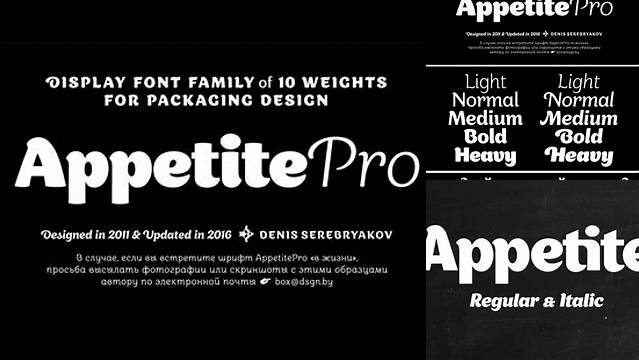
Introduction to Appetite Pro
Appetite Pro, guys, is not just another font; it's a typographic masterpiece designed to add a touch of elegance and sophistication to your projects. Whether you're working on branding, editorial design, or web layouts, this font can significantly elevate your visual communication. In this comprehensive guide, we’ll dive deep into what makes Appetite Pro so special, where you can find it for free, and how to use it effectively in your designs. So, buckle up and let's explore the world of Appetite Pro!
The first thing you'll notice about Appetite Pro is its versatility. It’s designed with a keen eye for detail, making it suitable for a wide range of applications. From sleek and modern logos to engaging website headers, Appetite Pro offers a unique blend of readability and style. The font family typically includes various weights and styles, such as regular, bold, italic, and more, giving you the flexibility to create a consistent yet dynamic visual identity across different media. Think of Appetite Pro as the Swiss Army knife of fonts – always ready to deliver the perfect look, no matter the task at hand. Its clean lines and balanced letterforms make it a joy to work with, ensuring your text always looks polished and professional.
One of the key reasons why designers love Appetite Pro is its ability to convey a sense of sophistication without sacrificing readability. This balance is crucial, especially in today’s fast-paced world where attention spans are shorter than ever. A font that looks beautiful but is difficult to read defeats its purpose. Appetite Pro, however, manages to be both visually appealing and highly legible, making it an excellent choice for body text as well as headlines. Imagine crafting a website with Appetite Pro – your visitors will not only be drawn in by the aesthetic appeal but also be able to effortlessly read through your content. This dual capability is what sets Appetite Pro apart from many other fonts in the market. It's a font that truly understands the importance of both form and function.
Furthermore, the design of Appetite Pro often incorporates subtle details that add to its overall charm. These might include unique letter shapes, elegant curves, or distinctive serifs that give the font its character. These nuances are what make Appetite Pro stand out and add a touch of personality to your designs. For instance, the gentle curves in the lowercase letters create a friendly and approachable feel, while the strong, confident strokes in the uppercase letters project authority and professionalism. It’s these small details that make a big difference, transforming a simple typeface into a powerful communication tool. Appetite Pro is not just about letters on a page; it’s about creating a visual experience that resonates with your audience and leaves a lasting impression.
Why Choose Appetite Pro?
When it comes to selecting a font, the options can seem endless. So, why should you choose Appetite Pro? Well, let's break it down. Appetite Pro stands out for its versatility, readability, and aesthetic appeal. It's a font that works well in a variety of contexts, from digital to print, making it a valuable asset in any designer’s toolkit. Plus, its unique design elements add a touch of sophistication that can elevate your projects from ordinary to extraordinary. Trust me, guys, once you start using Appetite Pro, you’ll wonder how you ever managed without it!
Firstly, let's talk about versatility. Appetite Pro is like that one friend who gets along with everyone – it fits seamlessly into a wide range of design styles and applications. Whether you're designing a sleek, modern website or a classic, elegant print brochure, Appetite Pro can adapt to your needs. Its clean and balanced letterforms ensure that it looks good in both headlines and body text, providing a cohesive visual experience for your audience. This adaptability makes Appetite Pro an excellent choice for branding projects, where consistency is key. Imagine using it for your logo, website, and marketing materials – the unified look will instantly boost your brand’s credibility and recognition. The ability to use a single font across multiple platforms not only simplifies your design process but also strengthens your brand’s identity.
Secondly, readability is a crucial factor when choosing a font, and Appetite Pro excels in this area. A beautiful font is useless if your audience can't easily read it. Appetite Pro is designed with legibility in mind, ensuring that your message is clear and accessible. Its well-defined letterforms and generous spacing make it easy on the eyes, even in long blocks of text. This is particularly important for websites and online content, where users are often skimming rather than reading every word. A font that is easy to read will keep your audience engaged and encourage them to spend more time with your content. Appetite Pro strikes the perfect balance between style and readability, making it a reliable choice for all your design needs. You want your audience to focus on your message, not struggle to decipher the text, and Appetite Pro ensures that your content is always crystal clear.
Lastly, the aesthetic appeal of Appetite Pro is undeniable. It’s a font that exudes elegance and sophistication, adding a touch of class to any project. The unique design elements, such as the subtle curves and distinctive serifs, give it a character that sets it apart from generic fonts. This visual appeal can significantly enhance the overall impact of your designs, making them more memorable and engaging. Think about the power of first impressions – a well-designed project using Appetite Pro can instantly grab attention and convey a sense of professionalism and quality. Whether you’re designing a logo, a poster, or a book cover, Appetite Pro can help you create a visual masterpiece that truly stands out. It’s a font that not only looks good but also makes your designs look good.
Appetite Pro is a fantastic font that can add a touch of class to any design project. By understanding its strengths, knowing where to find it for free, and learning how to use it effectively, you can elevate your designs and make a lasting impression. So go ahead, guys, give Appetite Pro a try and see the difference it can make!